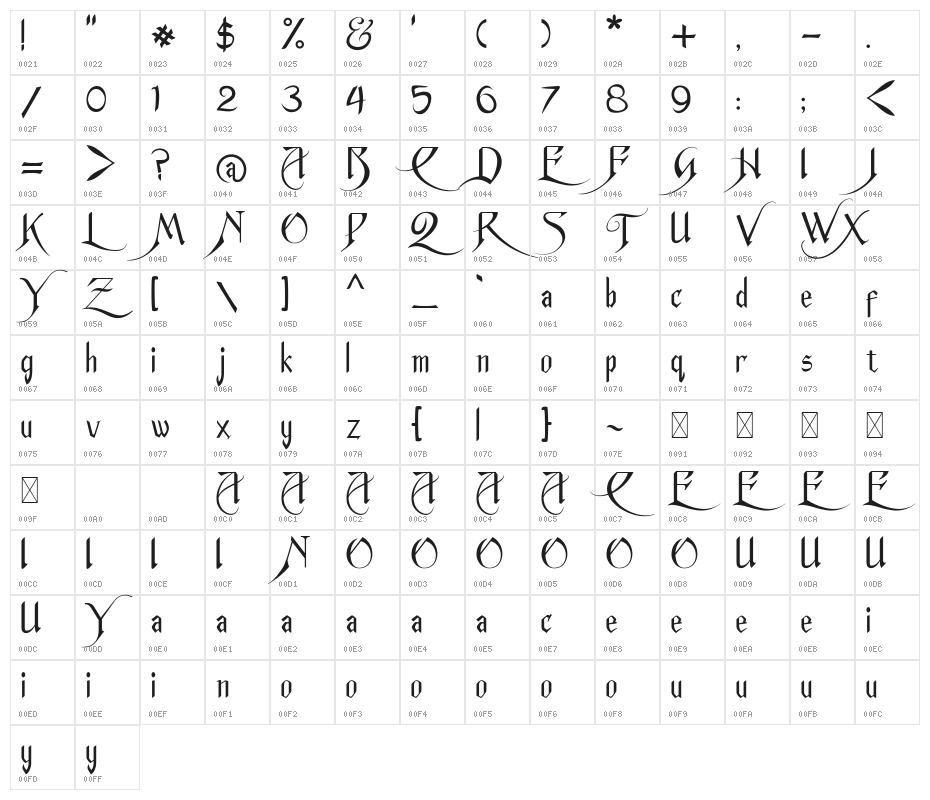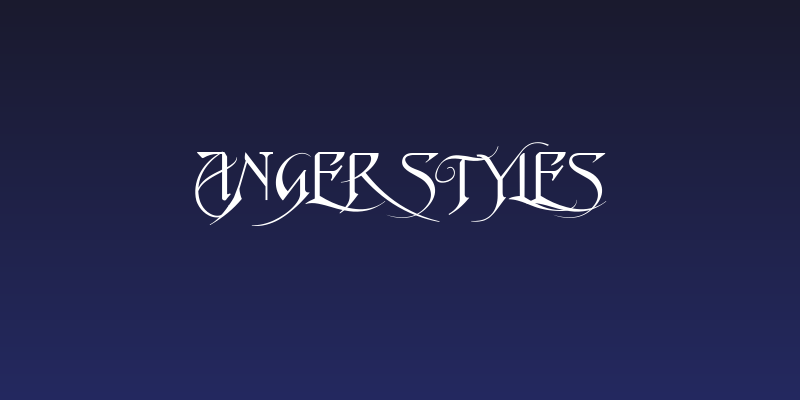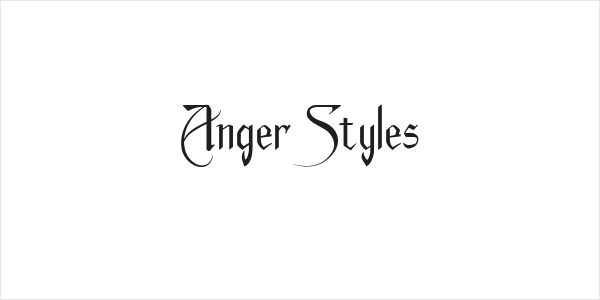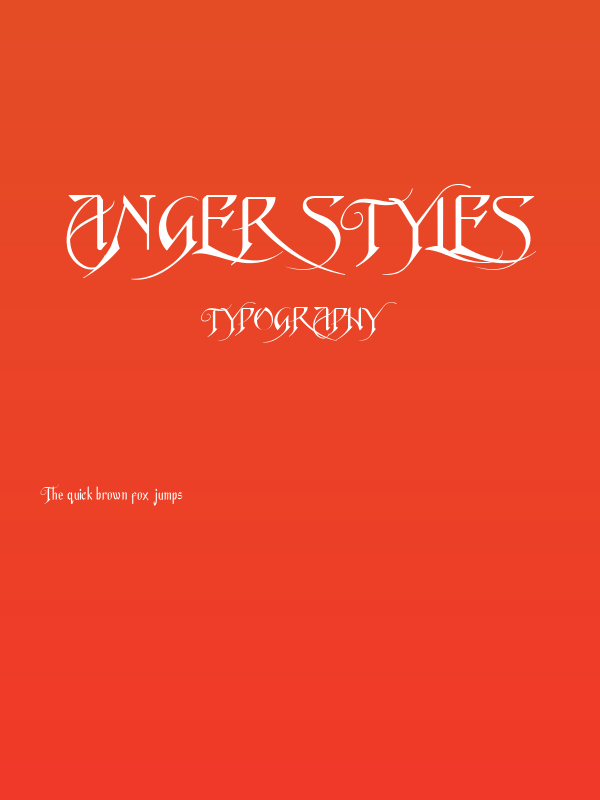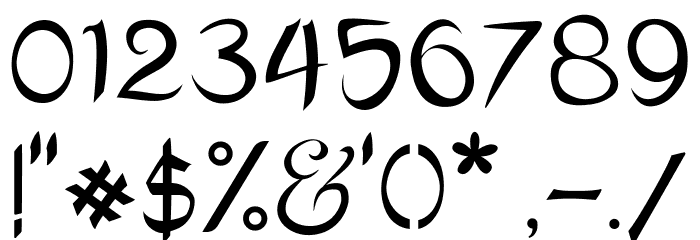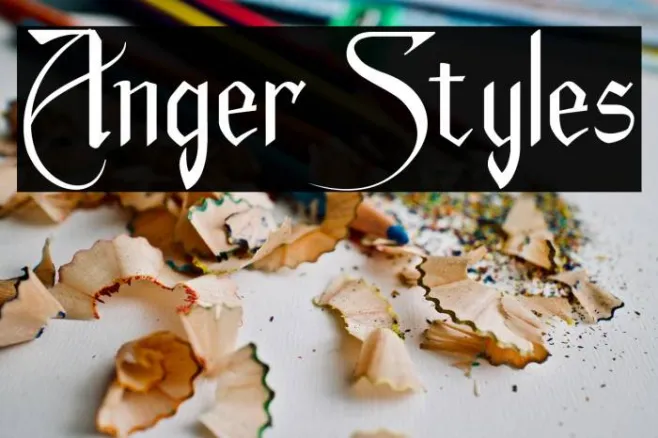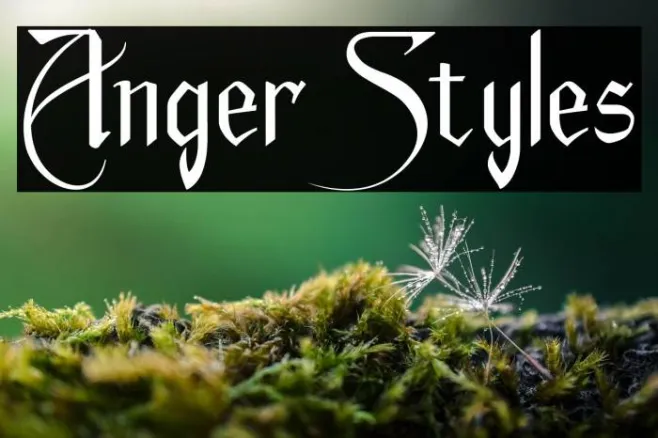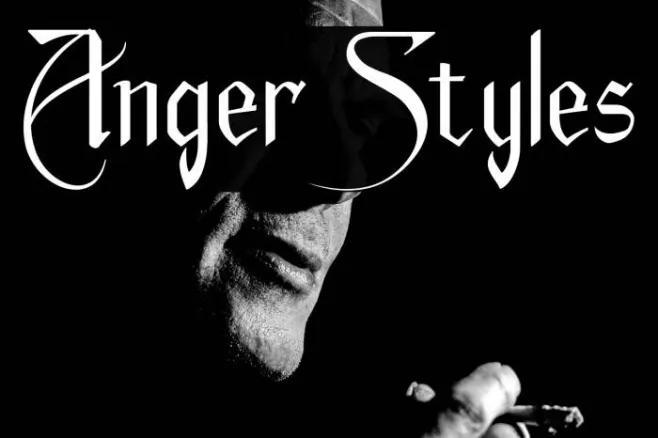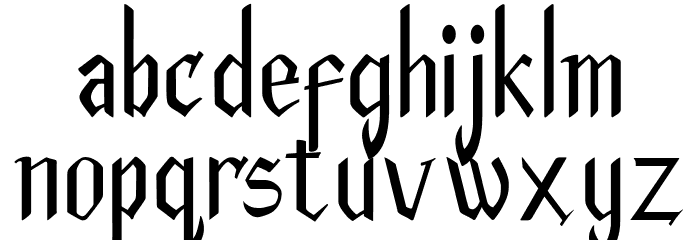
Anger Styles Font
Anger Styles Description
This font features a dramatic and expressive style, characterized by sharp, angular strokes and a calligraphic influence. The uppercase letters exhibit a strong presence with sweeping curves and pointed serifs, while the lowercase letters maintain a consistent flow with a slightly more restrained design. The numerals are bold and distinctive, complementing the overall aesthetic. Special characters are creatively integrated, maintaining the font's unique flair. This font's intricate details and bold strokes make it ideal for projects that require a touch of elegance and drama.
ANGER-STYLES UPPERCASE
ANGER-STYLES LOWERCASE
ANGER-STYLES OTHER CHARS